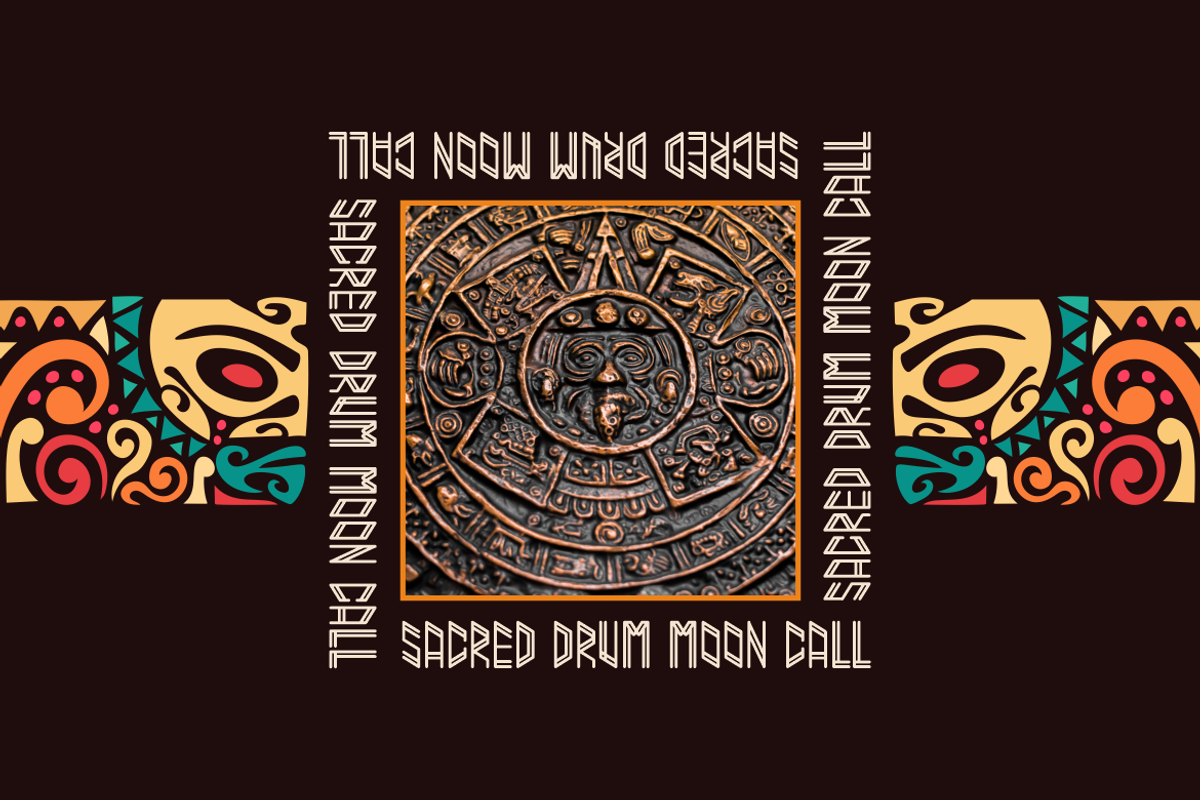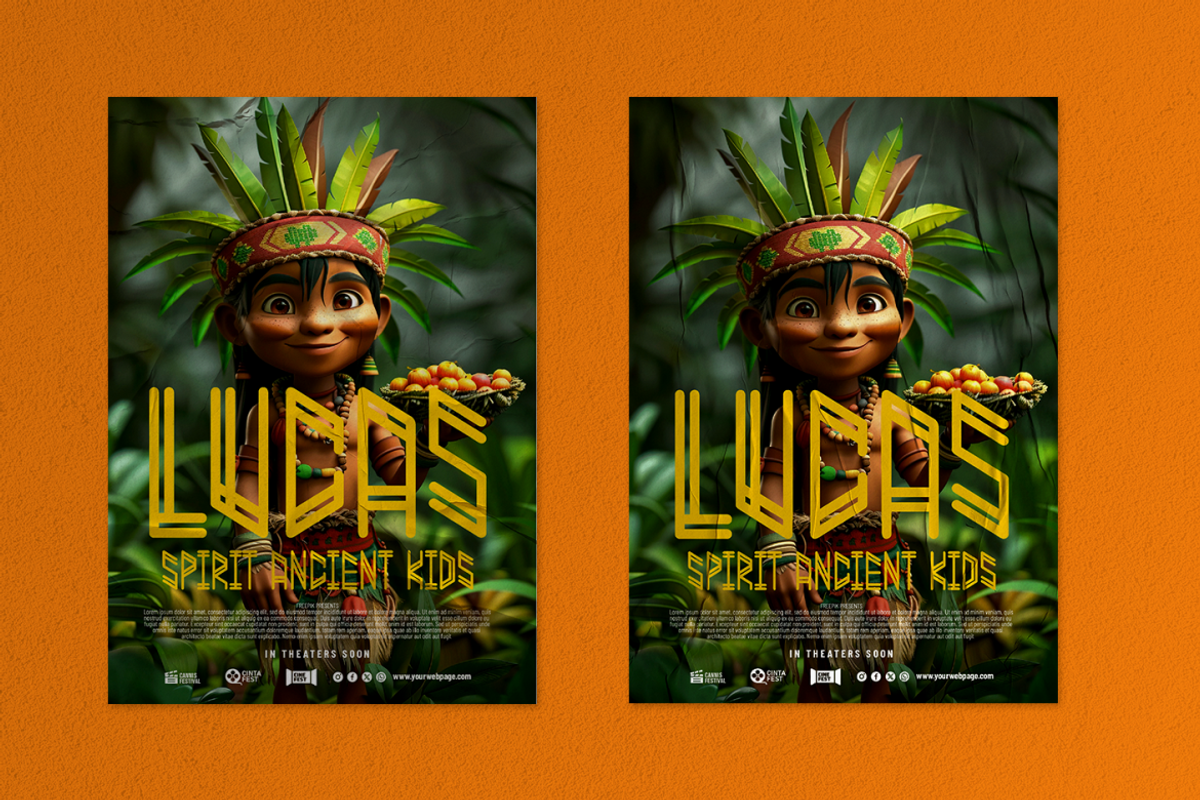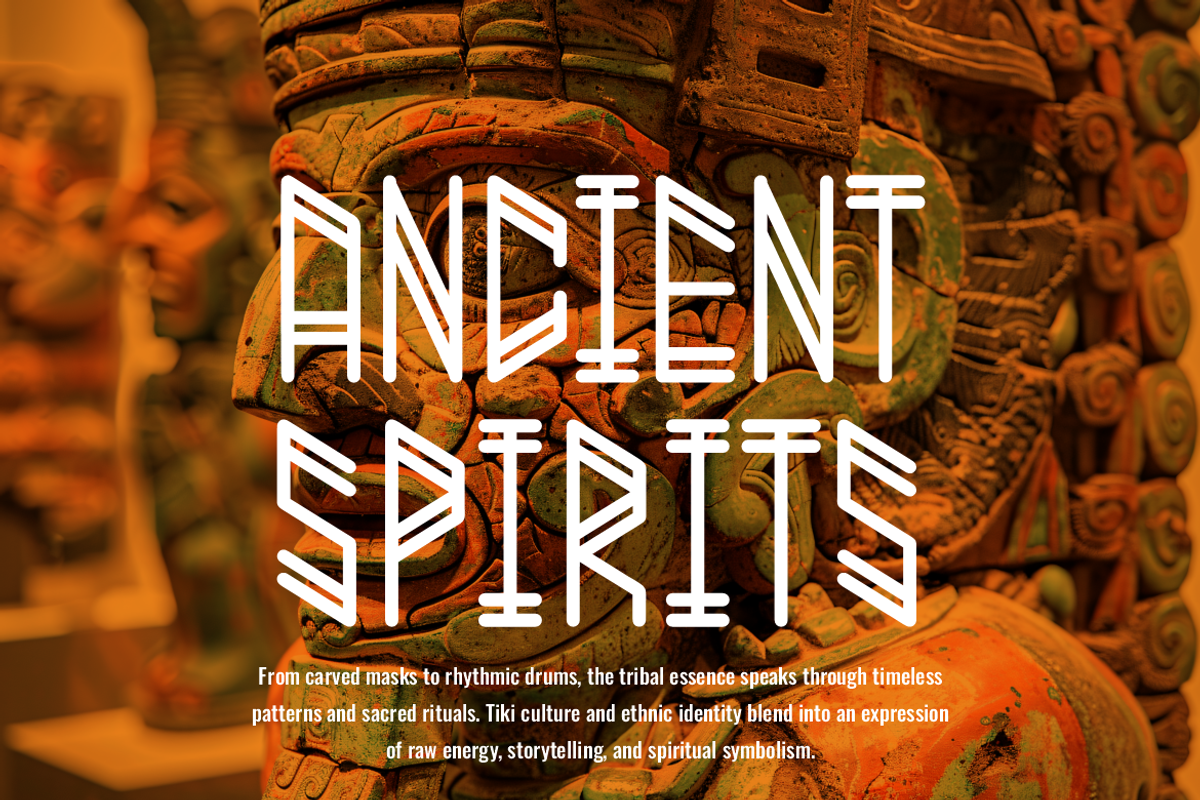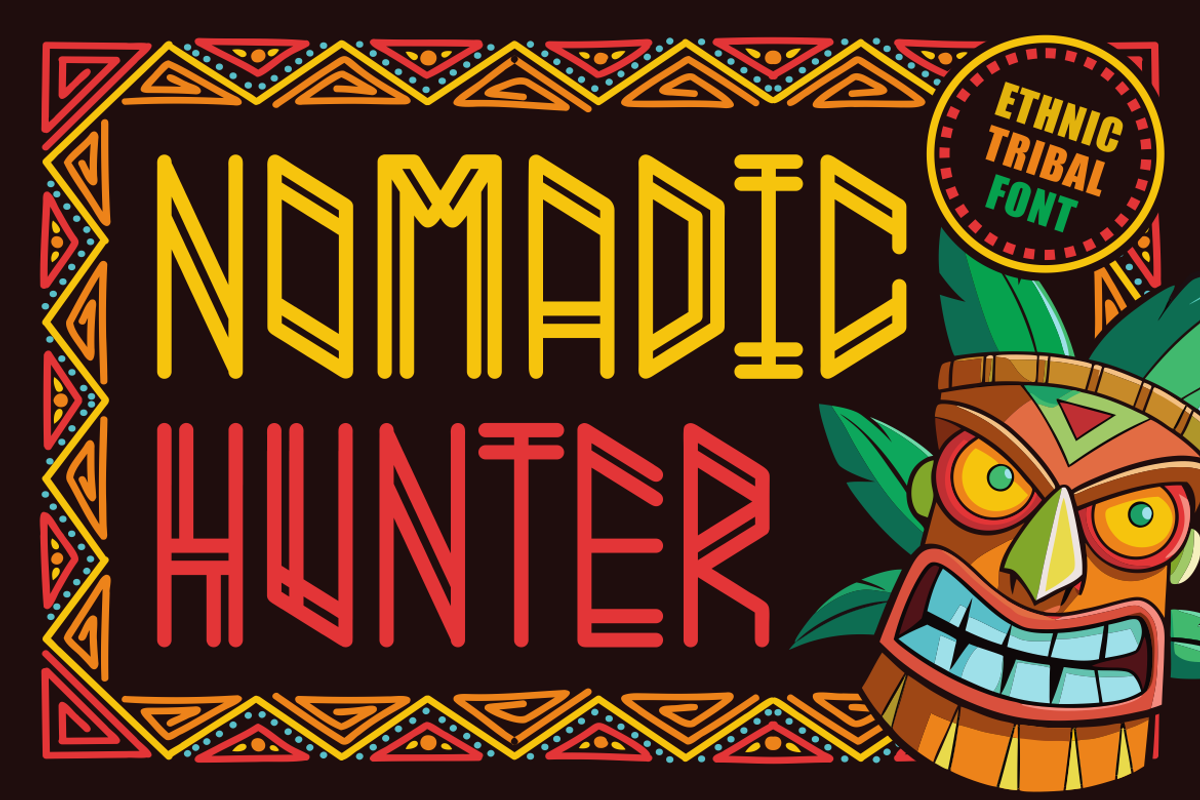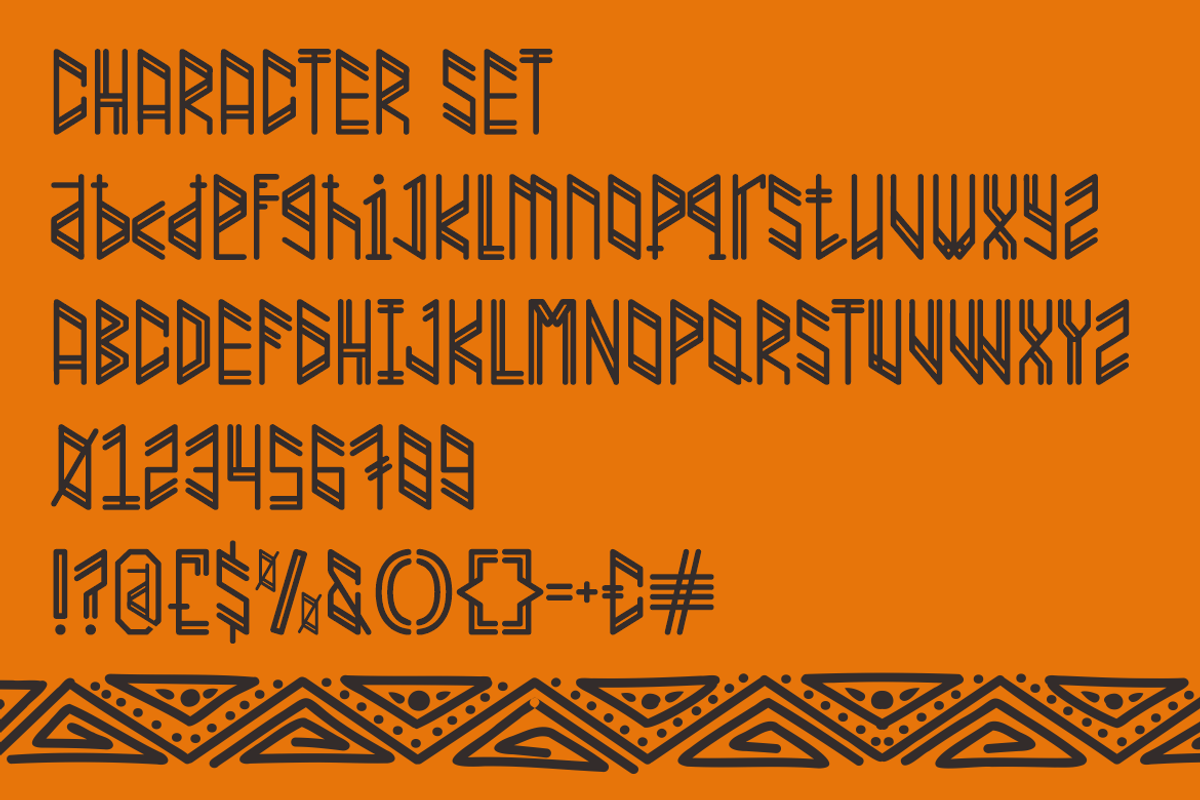
Nomadic Hunter Ethnic Font
Nomadic Hunter Ethnic Font brings raw energy and cultural depth into every design. Inspired by nomadic traditions and tribal art, this font features elongated letterforms with geometric cuts that resemble carved patterns. Each stroke captures the essence of tiki masks, sacred symbols, and ethnic crafts, making it perfect for projects that demand authenticity and uniqueness. The tall and narrow shapes create a striking condensed style, while the angular details add a handcrafted, rustic charm. This design works beautifully in logos, posters, and packaging where a bold cultural statement is needed.
The font’s ethnic and tribal spirit makes it versatile for modern creative needs. From festival posters to branding projects, it transforms text into visual storytelling. Use Nomadic Hunter for film titles, invitation cards, stickers, and magazine covers that celebrate tradition and creativity. Whether highlighting a cultural theme or adding a powerful tribal accent, this font ensures designs stand out with vibrant personality and strong cultural roots. Designers looking for a display typeface that blends heritage with creativity will find this font both functional and artistic.